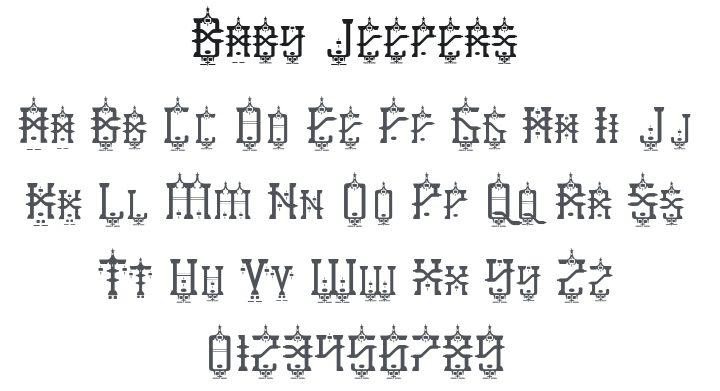
Baby Jeepers Font
About Baby Jeepers
Baby Jeepers is a modular ornamental small caps display typeface playfully described as being inspired by lettering on ancient Martian temples — giving it an exotic, alien-hieroglyphic character. Its decorative, geometric forms feel otherworldly and ceremonial. Great for sci-fi or fantasy titles, cult-themed branding, occult-inspired posters, and any headline needing a mysterious, alien aesthetic.